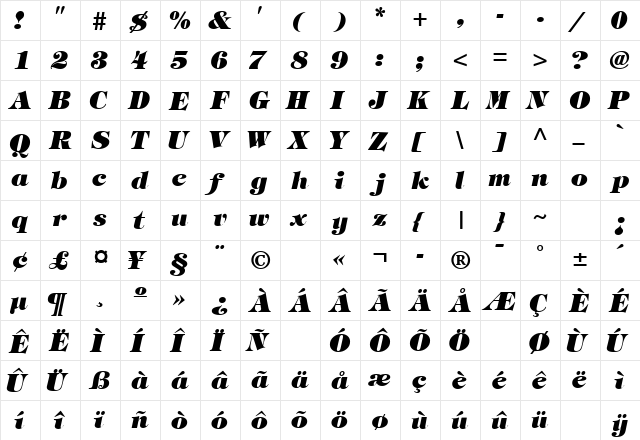
SophisticateBlackSSK Bold Italic Font Preview
Design Context for SophisticateBlackSSK Typeface
SophisticateBlackSSK takes a measured approach to typography — its balanced proportions and neutral character make it a reliable workhorse for both digital and print work. Its italic angle brings a sense of urgency and motion to the letterforms. The heavy weight commands attention and anchors typographic hierarchies.
Pro Tip: Use SophisticateBlackSSK for emphasis, pull quotes, and subheadings where its slanted energy can add rhythm to the layout.